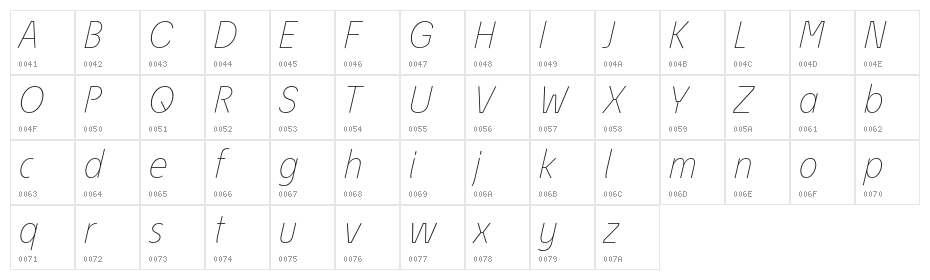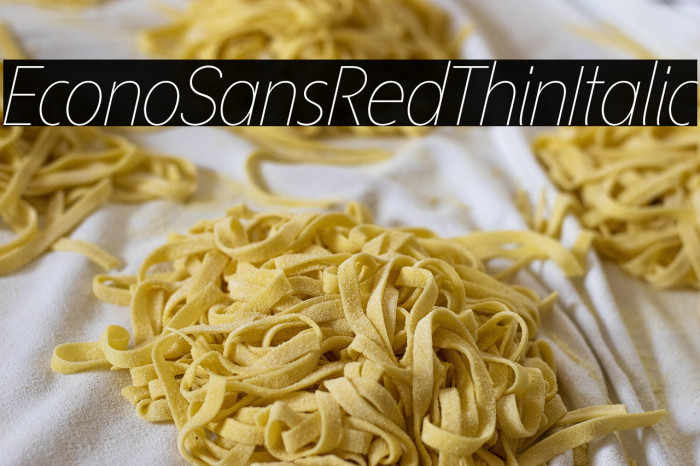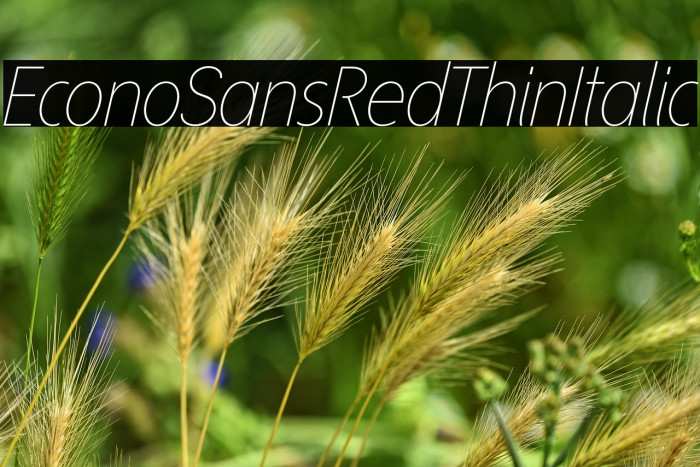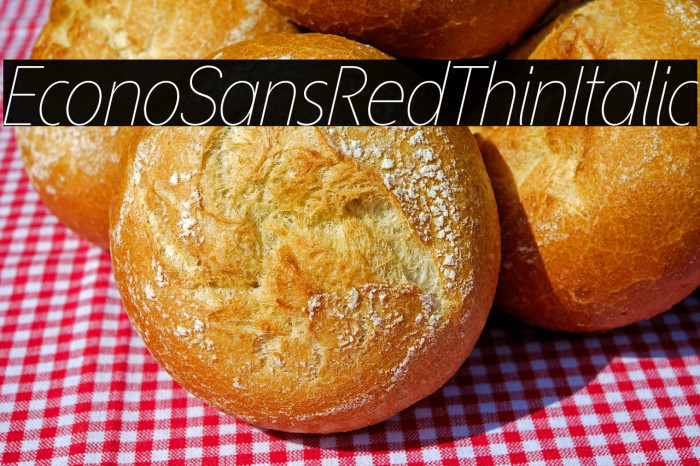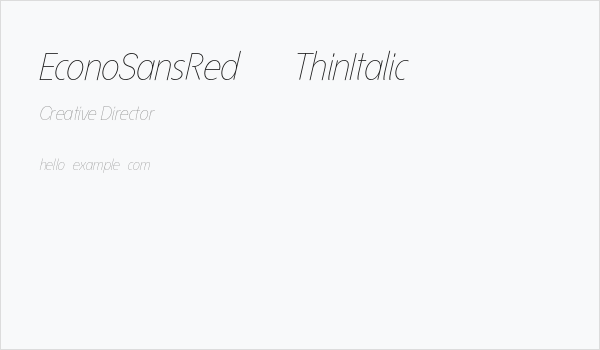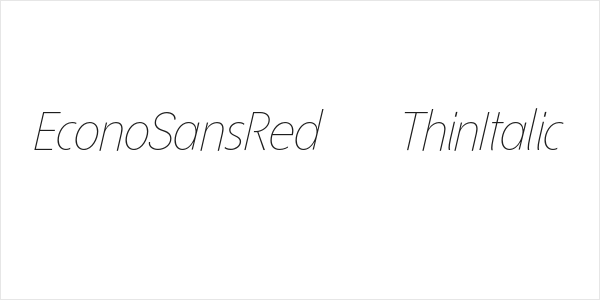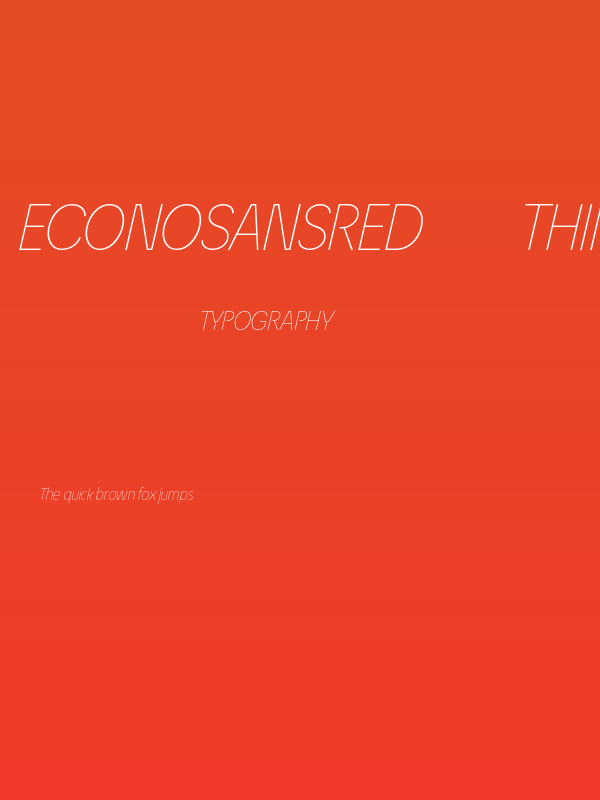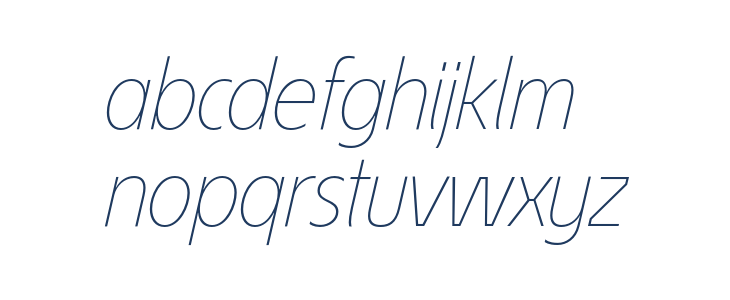
EconoSansRed-36ThinItalic Font
EconoSansRed-36ThinItalic Description
This font features a sleek and modern design with a thin, elegant stroke that conveys a sense of sophistication and minimalism. The characters are slightly slanted, giving it an italicized appearance that adds a dynamic and fluid feel. The sans-serif style ensures a clean and uncluttered look, making it versatile for various design applications. The uppercase and lowercase letters maintain a consistent height and width, providing a harmonious and balanced appearance. The font's thin weight and narrow width make it ideal for projects that require a refined and contemporary aesthetic.
| Proposed Projects | Ideal for fashion magazines, modern branding, minimalist websites, and elegant invitations. |